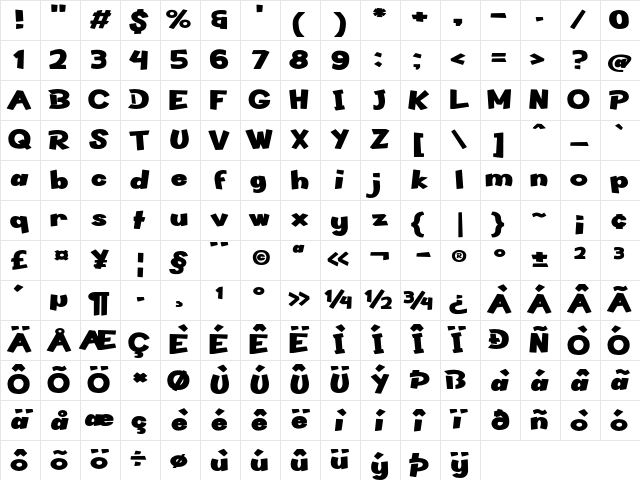
Ducklips Extra-expanded Bold
Style: Extra-expanded Bold
Design Context for Ducklips
Ducklips is a composed and adaptable typeface that performs quietly and consistently across a wide range of design contexts. Its bold stroke weight gives it real presence on the page.